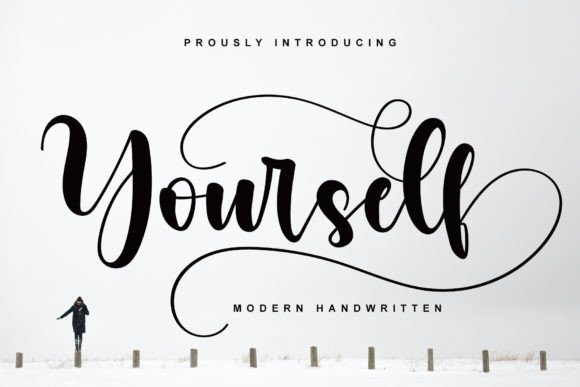
In a world of mundane monotony, meet Yourself Font – a script font family that bursts with vivacity! Unleash your creativity with the strokes of this font designed by YanStudio. Each letterform dances with distinct style, adding an air of charm to your digital creations.
Whether you're crafting heartfelt greeting cards, making bold headlines, building a brand identity, or designing captivating packaging, Yourself Font is your go-to companion. Its allure extends from personal projects to commercial endeavors, leaving an imprint that resonates with your audience.
With every word and phrase, Yourself Font emanates sophistication and personality. Its whimsical nature transforms ordinary text into captivating art, enhancing your designs with a unique touch. Embrace the beauty of imperfection and let the organic flow of the script font elevate your creations to new heights.
Dive into the world of Yourself Font and be amazed by its versatility. Whether you're a seasoned designer or just starting your creative journey, this font will empower you to express yourself in ways you never imagined. Let your words dance with joy and grace, captivating your audience with every stroke.
So why settle for the ordinary when you can have the extraordinary? Choose Yourself Font and let your designs speak volumes, leaving an unforgettable impression that echoes in the hearts of your audience. Embrace the magic of this script font and embark on a creative journey that's as captivating as it is unique!